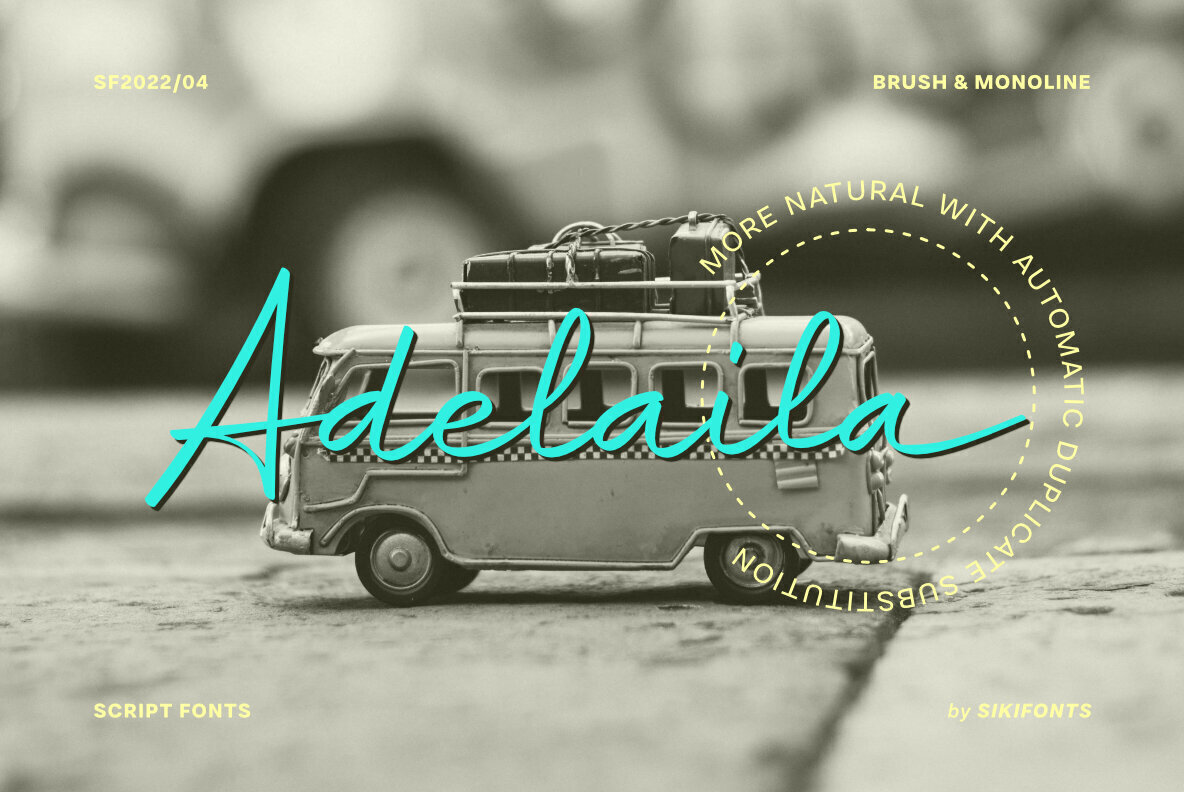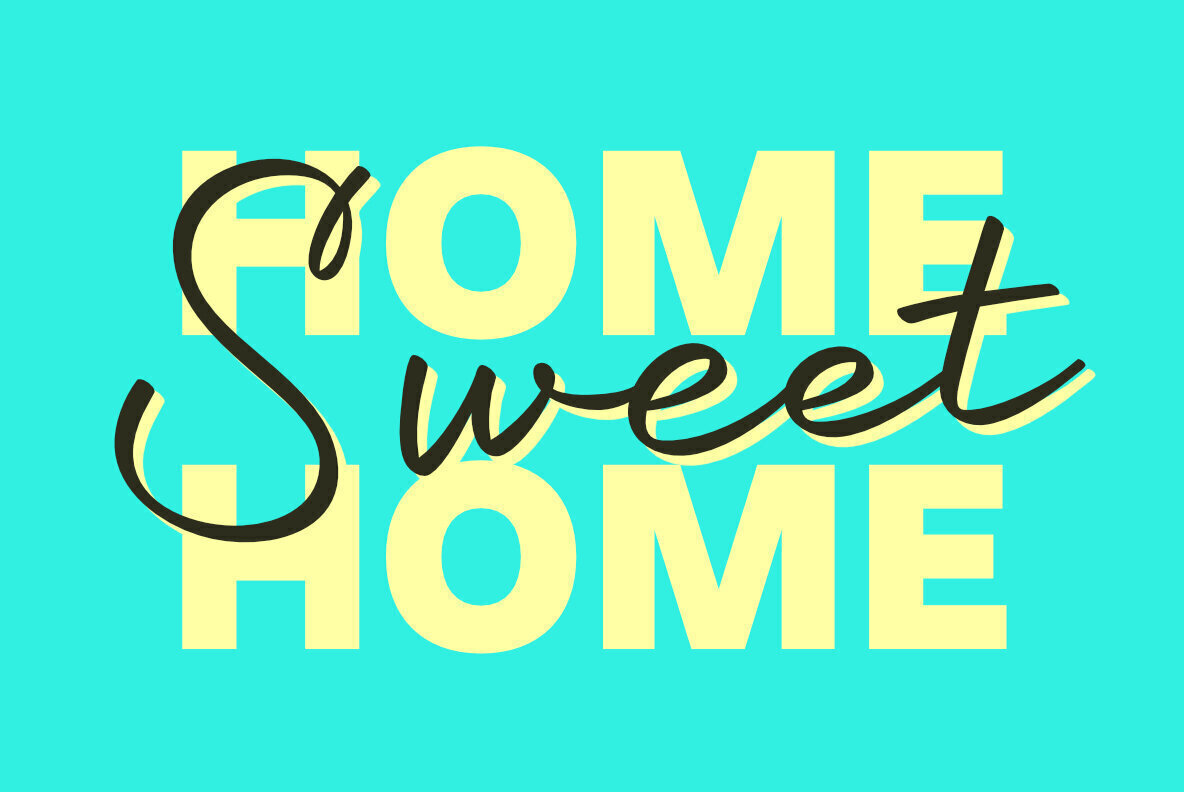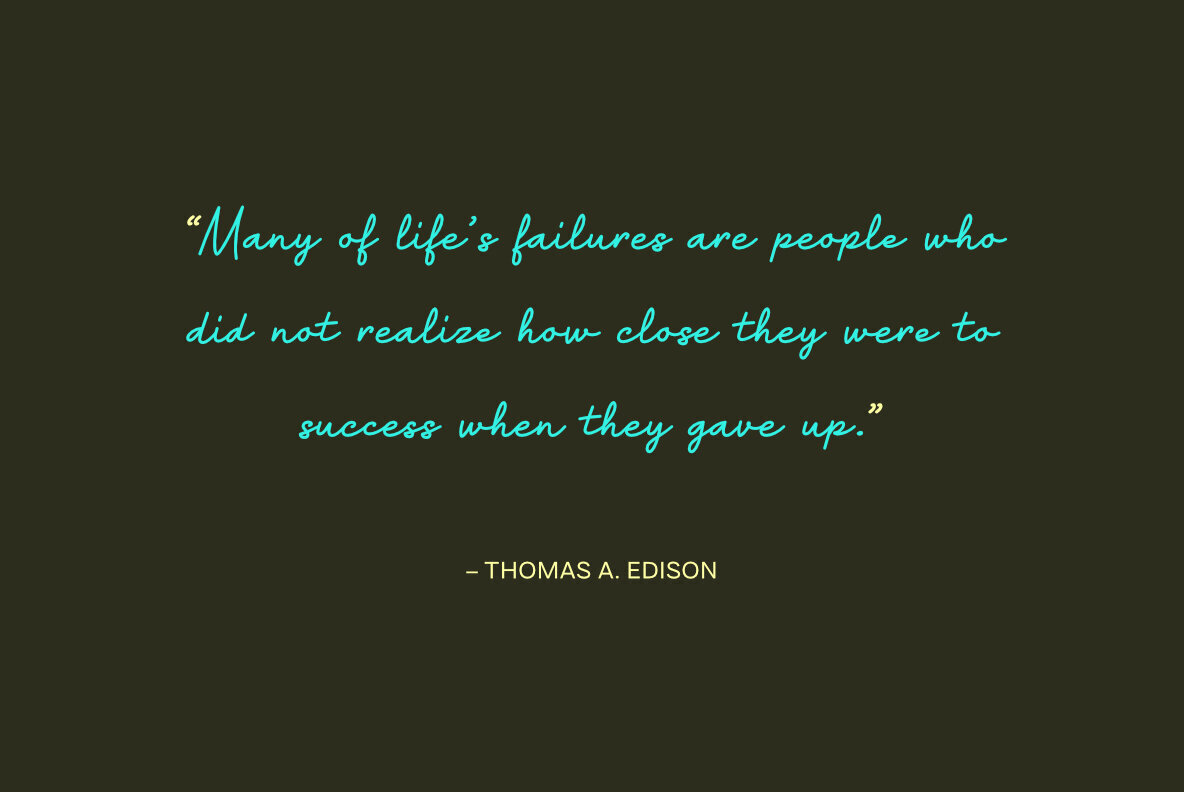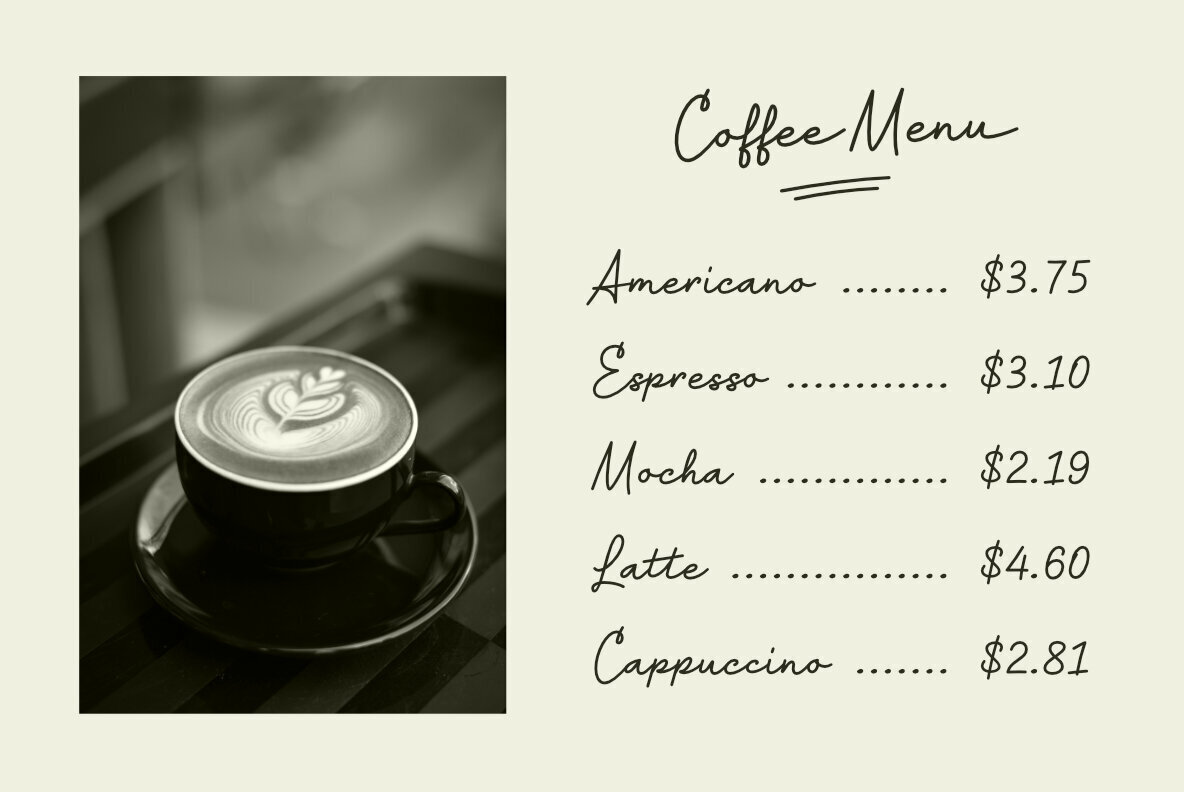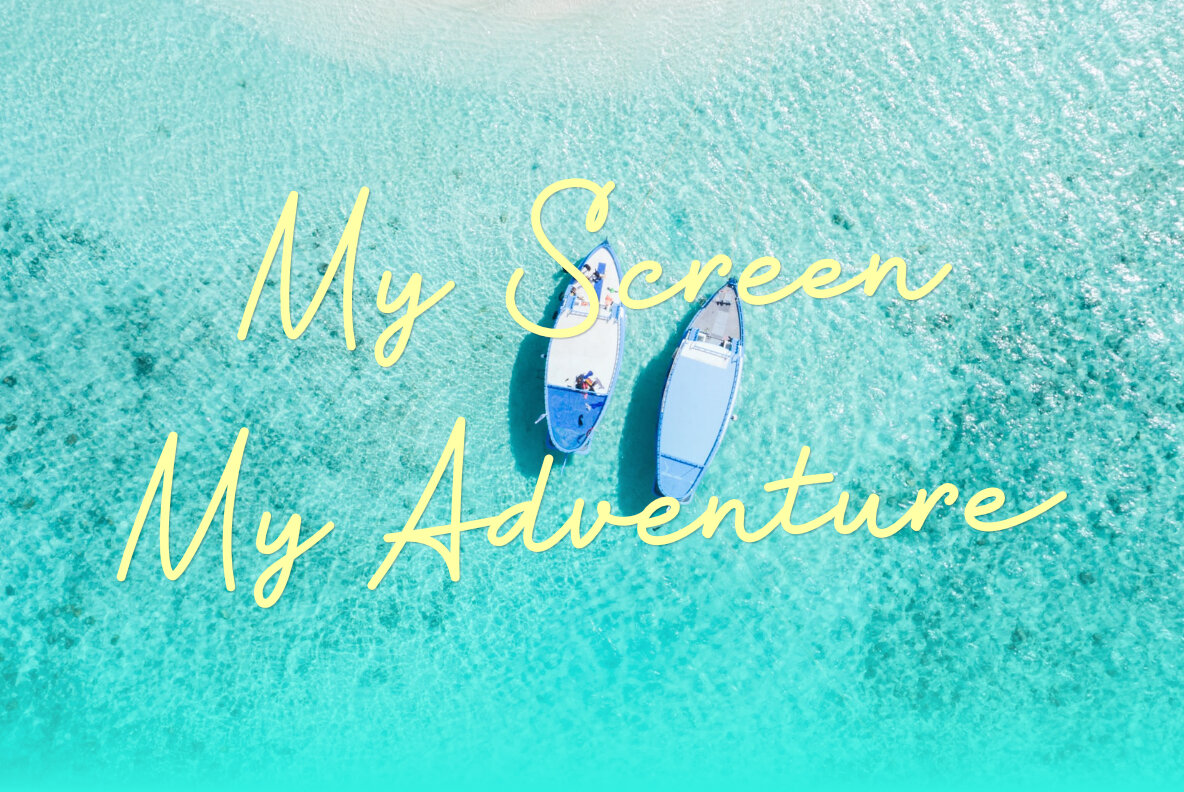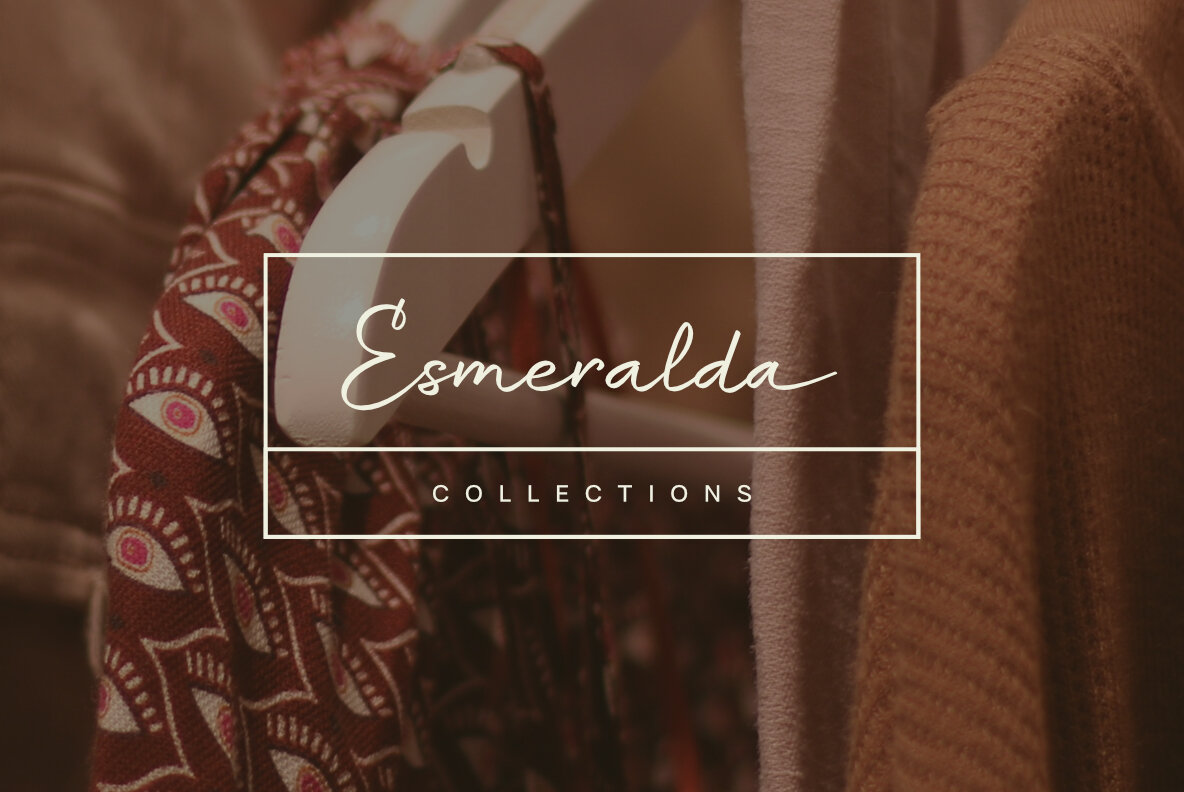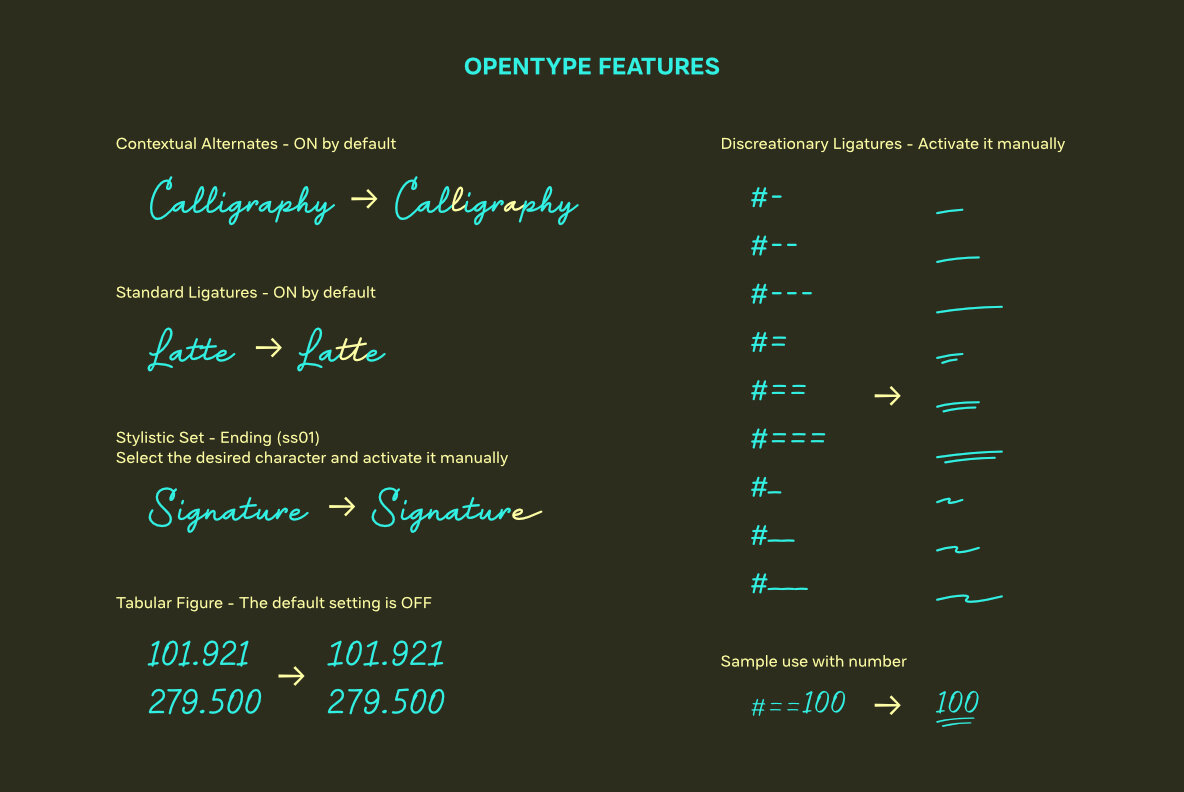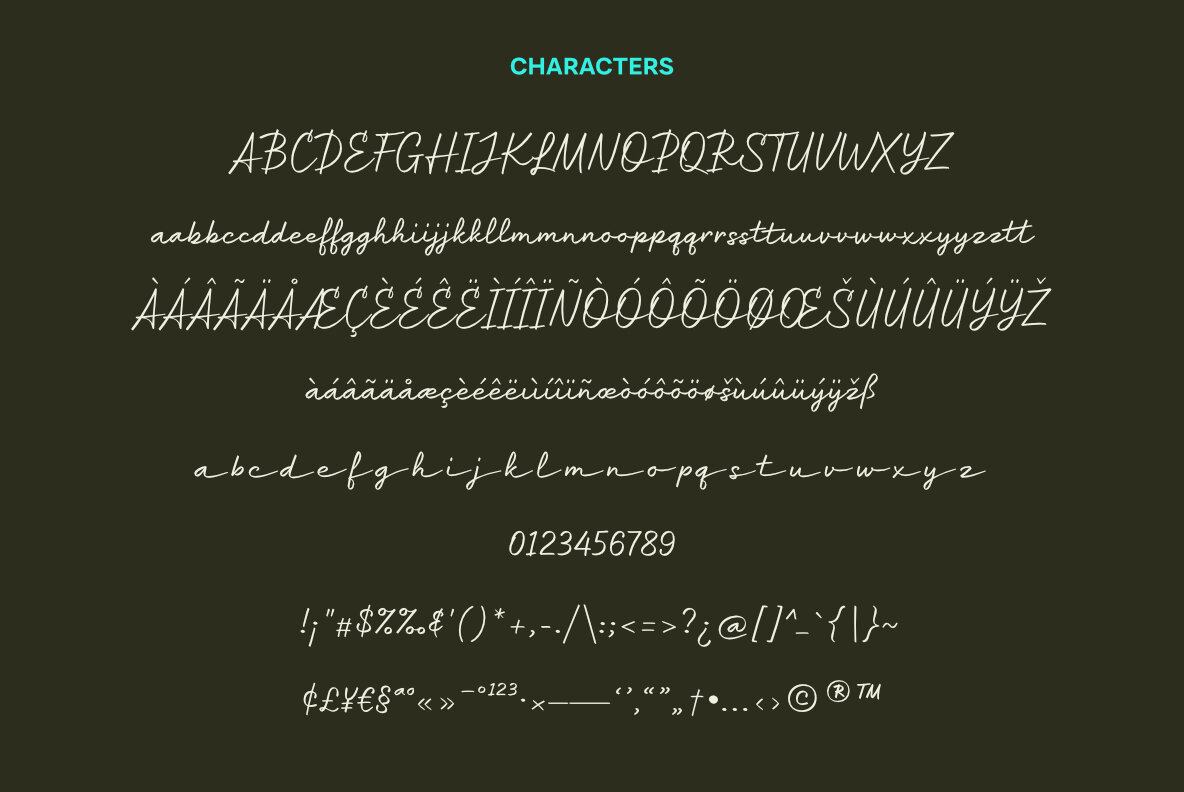
Adelaila Font
Adelaila Brush
Adelaila Monoline
Adelaila showcases the artistry of a handwritten script, presenting itself in two distinct styles: brush and monoline. This font embraces a natural and flowing handwriting appearance, thanks to its Contextual Alternate feature. As you type words containing double letters, such as 'sweet', 'mono', or 'creative', Adelaila automatically replaces the duplicate character with an alternate, capturing a spontaneous handwritten feel. To fully unlock the potential of Adelaila, utilize OpenType-savvy software such as Illustrator, InDesign, Publisher, Designer, or CorelDraw. This font elevates your design projects with its dynamic and elegant handwriting style.Adelaila: Versatile Handwritten Script